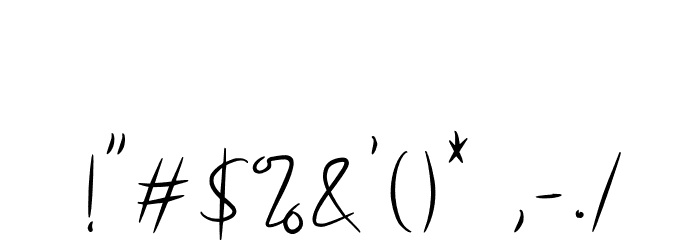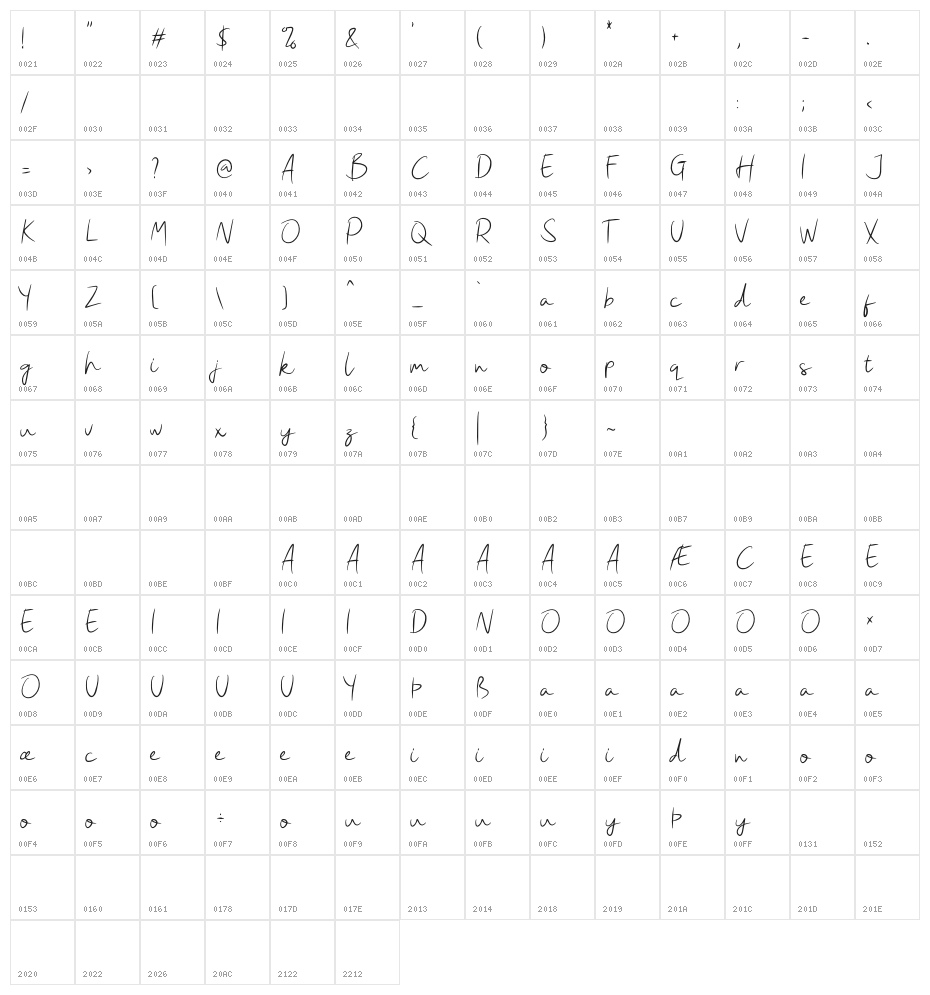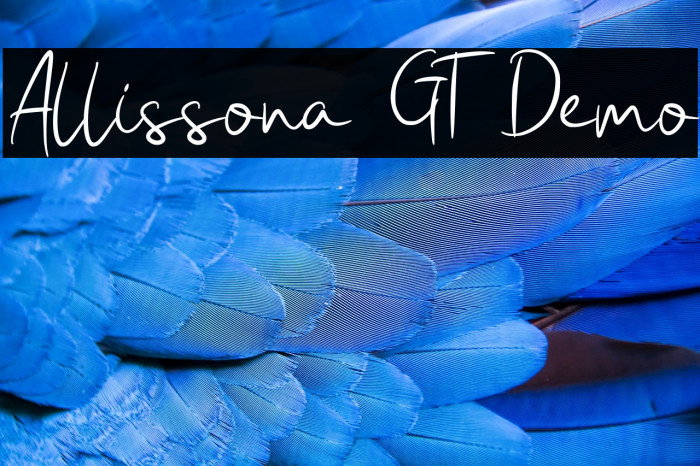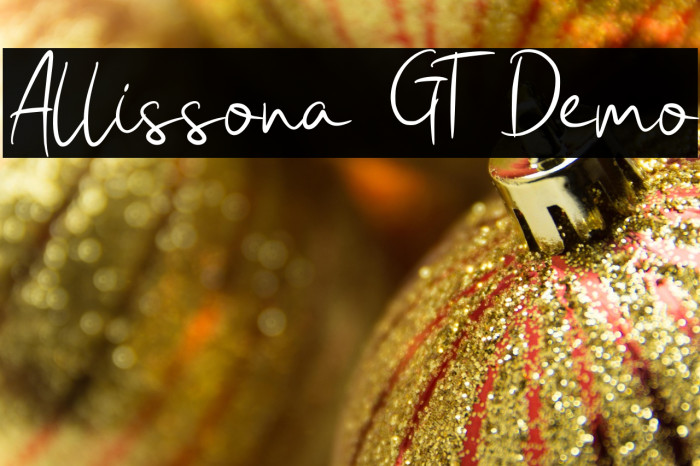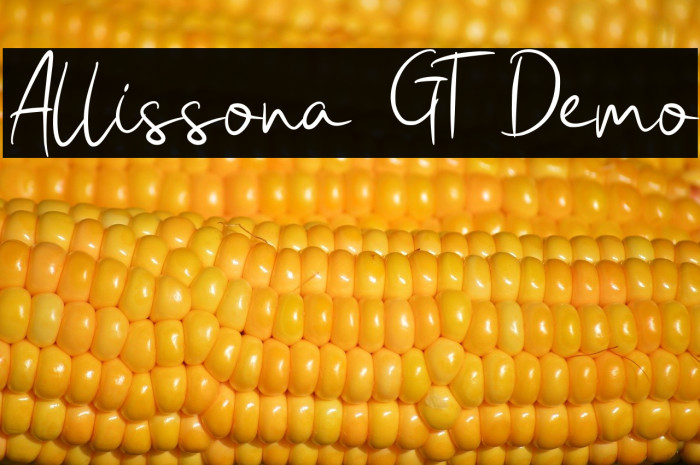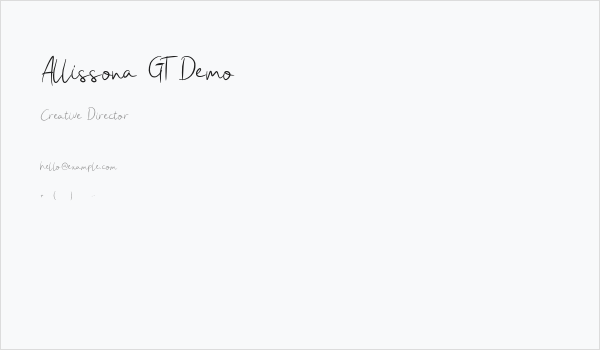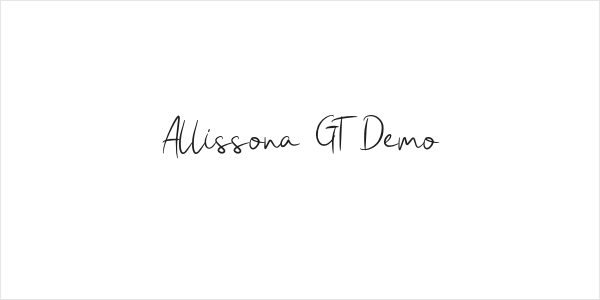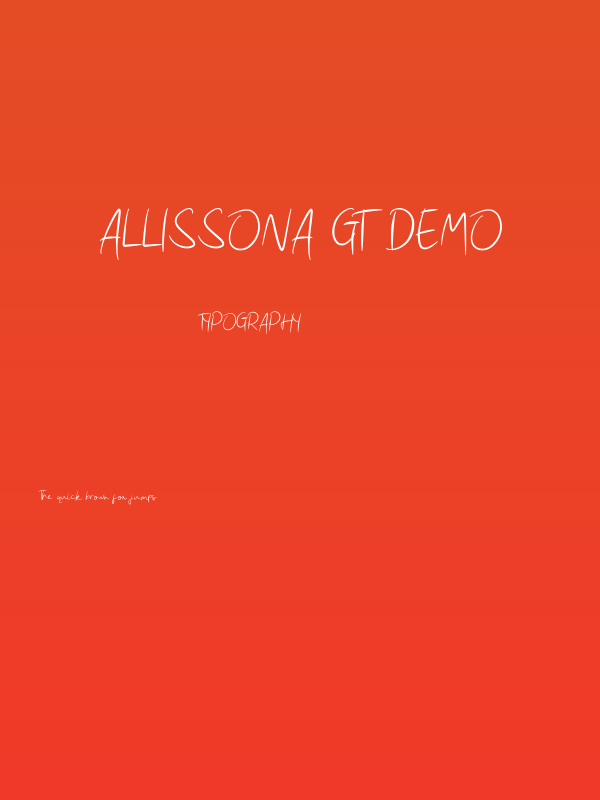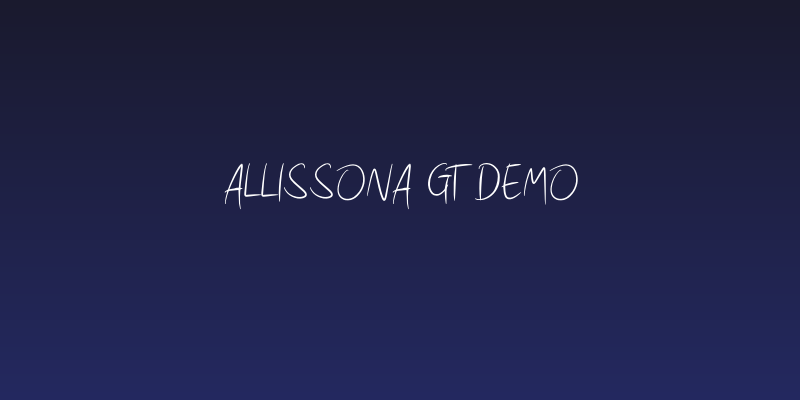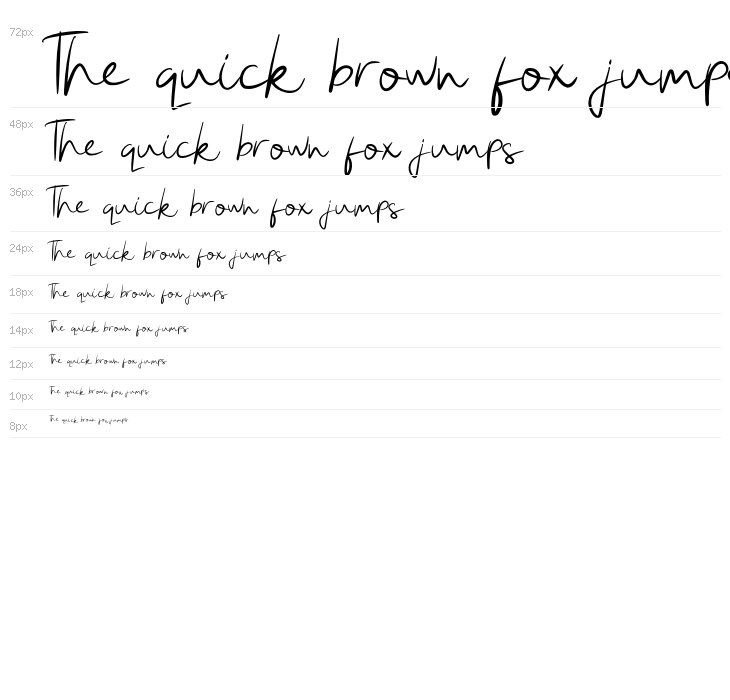
Allissona GT Demo Font
Allissona GT Demo Description
This font features a lively and expressive handwritten style, characterized by its fluid and dynamic strokes. The uppercase letters are tall and slightly narrow, with a playful yet elegant flair. The lowercase letters maintain a consistent flow, enhancing the handwritten aesthetic. The numerals and special characters complement the overall style, adding a touch of whimsy. This font's unique charm makes it suitable for creative and informal designs, where a personal touch is desired.
| Use Case | Logos, Invitations, Greeting cards |
| Proposed Projects | Ideal for greeting cards, invitations, personal branding, and creative projects that require a personal touch. |